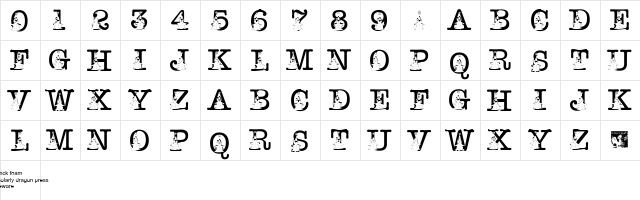
pf_snowman-snowflake Regular Font Preview
pf_snowman-snowflake Regular
pf_snowman-snowflake Regular Font Details
| Designer | David E. Howerton |
Design Context for pf_snowman-snowflake Typeface
pf_snowman-snowflake is a composed and adaptable typeface that performs quietly and consistently across a wide range of design contexts.